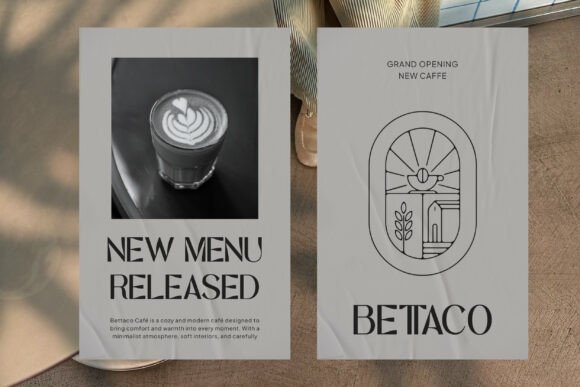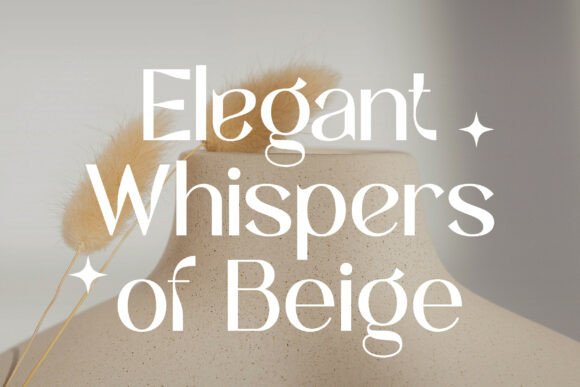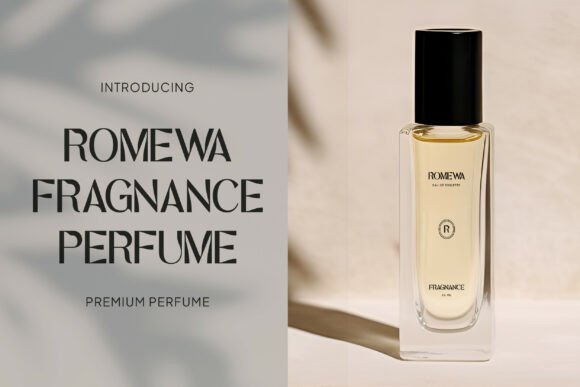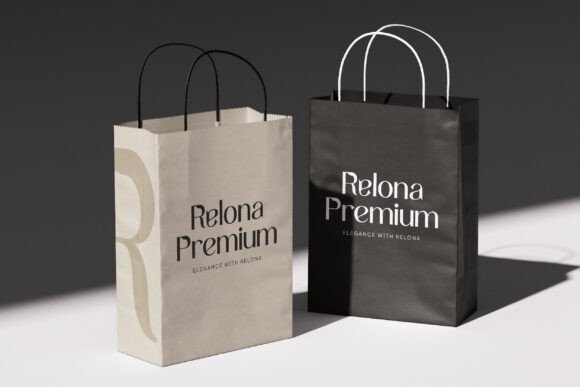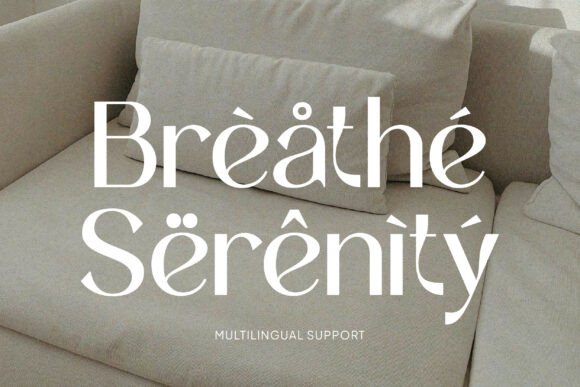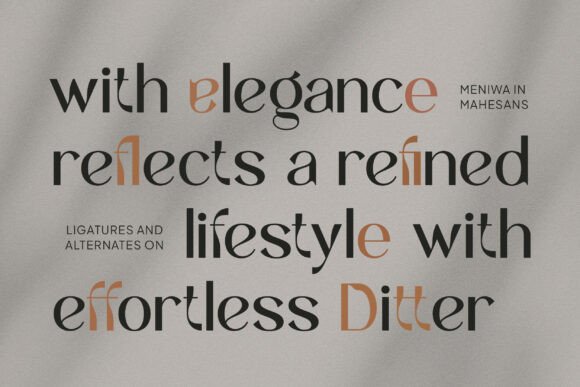
Introduction to Meniwa Font
Meniwa is an elegant modern sans serif font designed to bring sophistication, balance, and artistic character into every design project.
Featuring sleek geometric forms blended with graceful curves, Meniwa creates a luxurious and contemporary visual identity that feels both timeless and fashion-forward With beautifully crafted ligatures and alternate characters, this font delivers a unique editorial look perfect for premium branding and modern creative work.